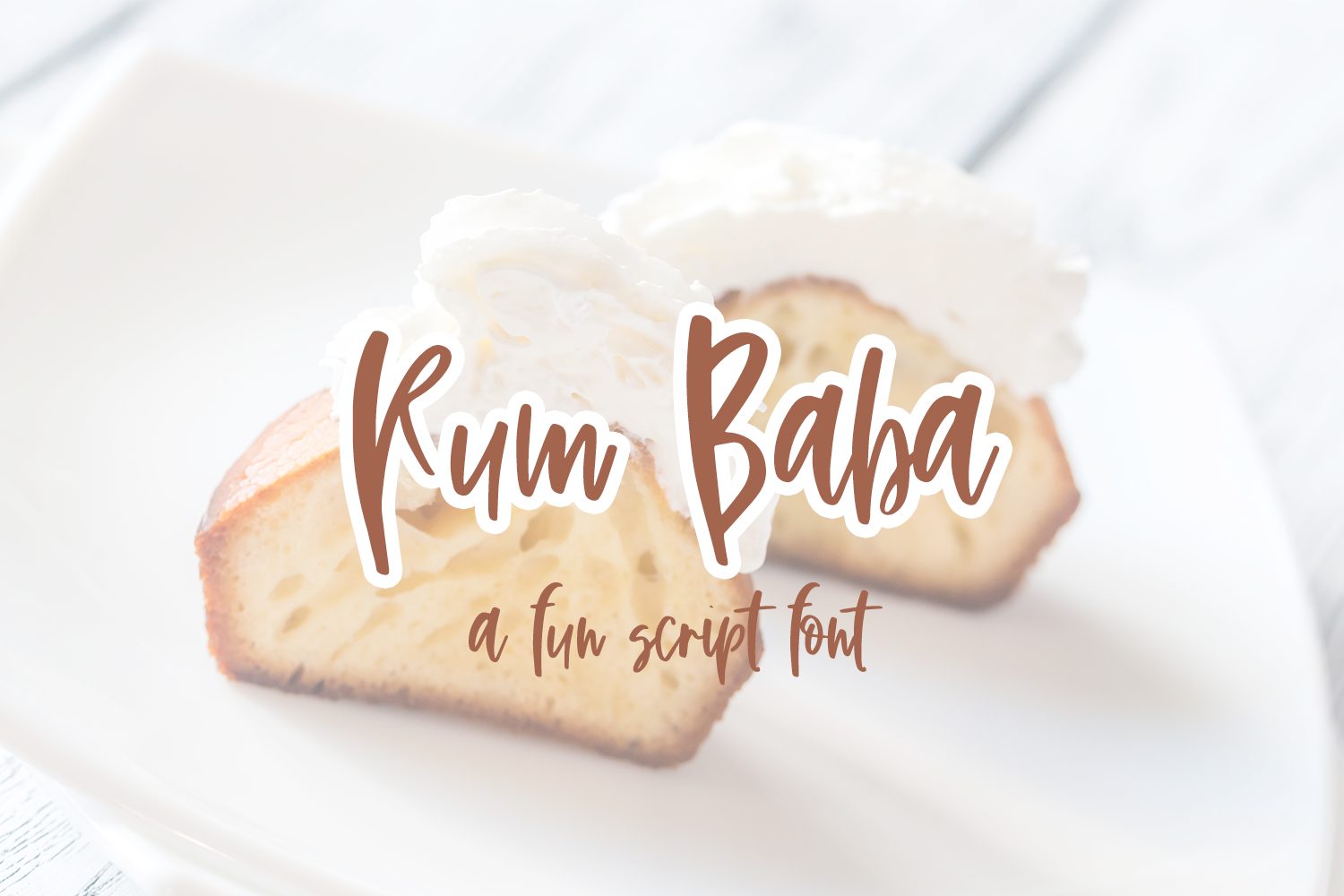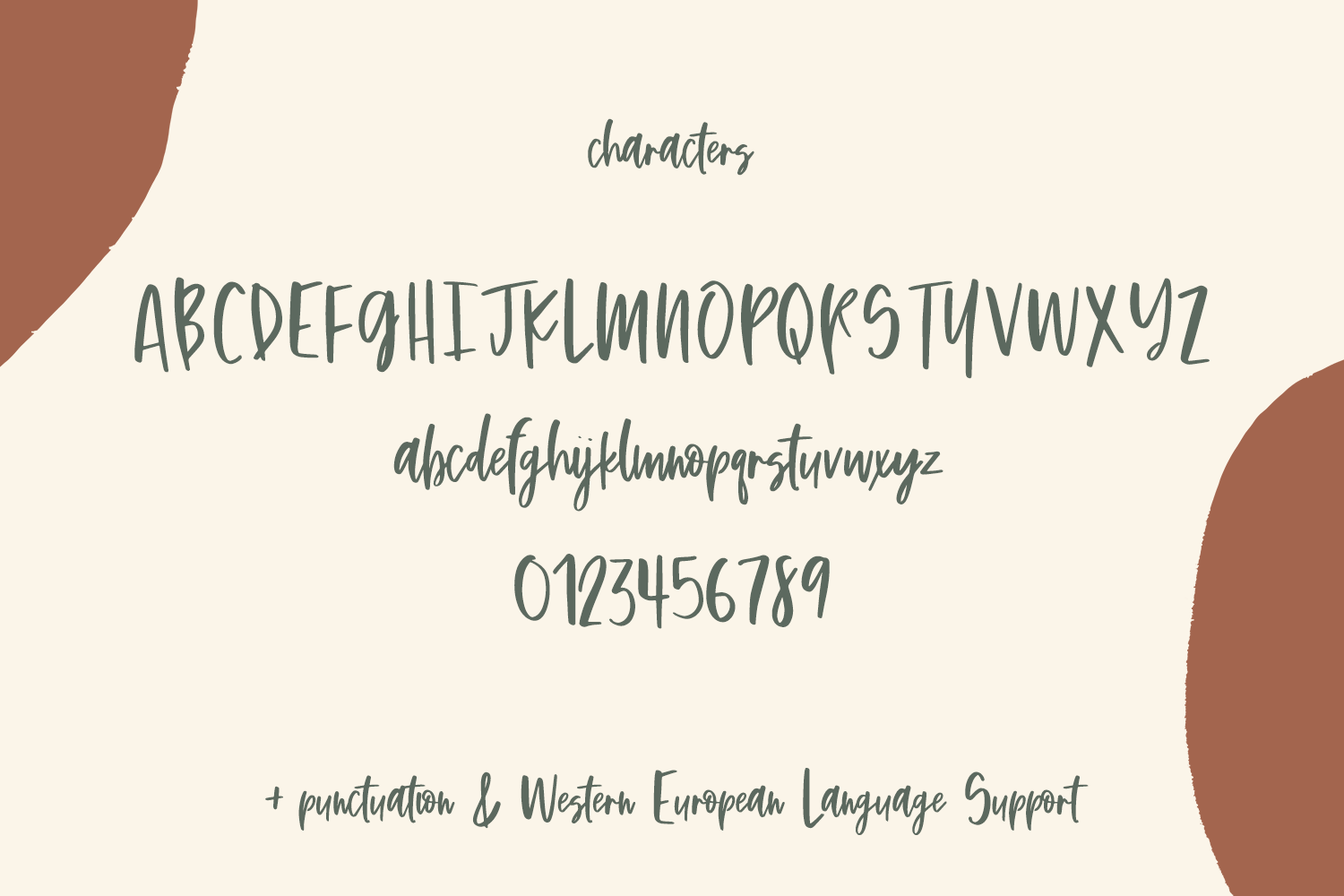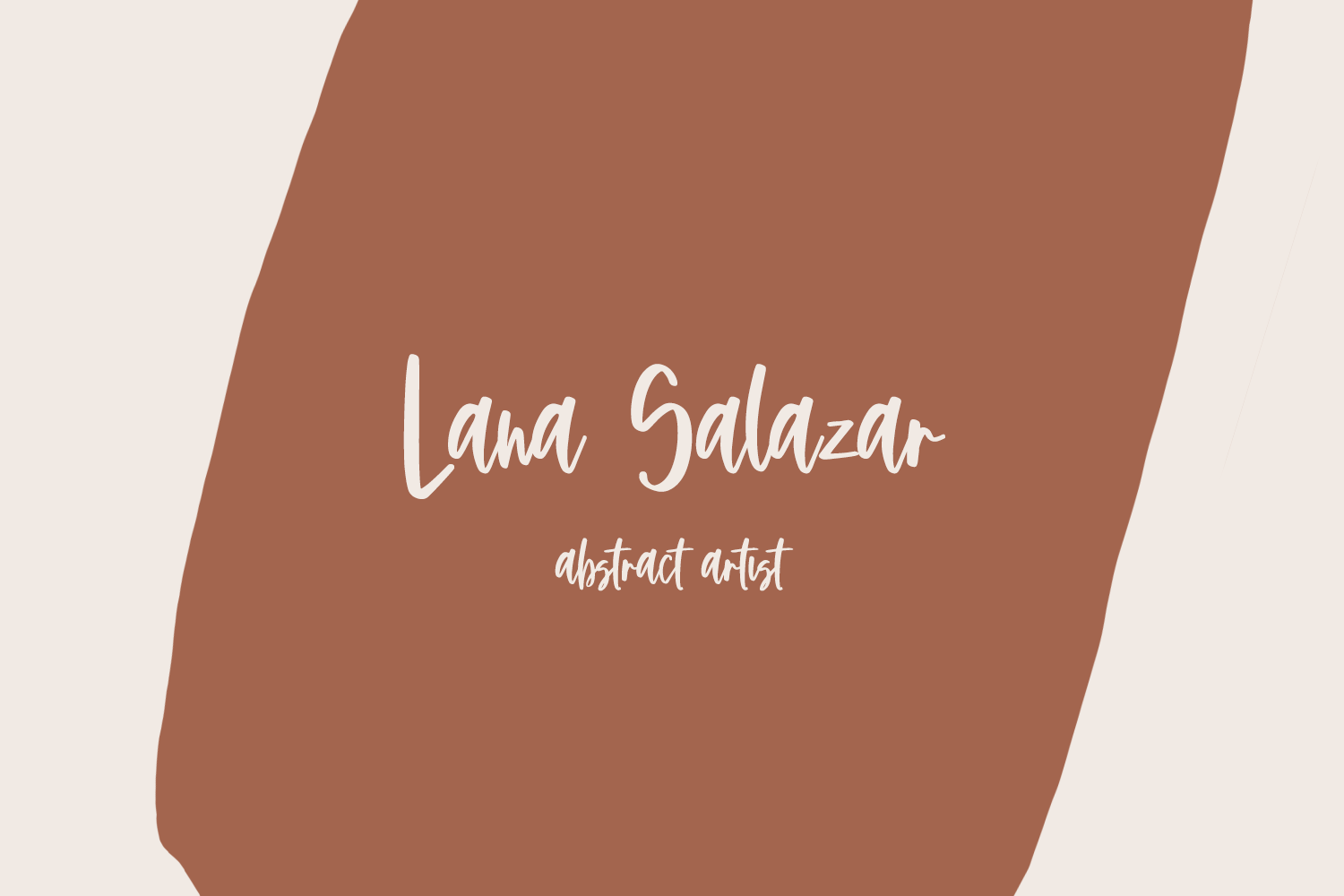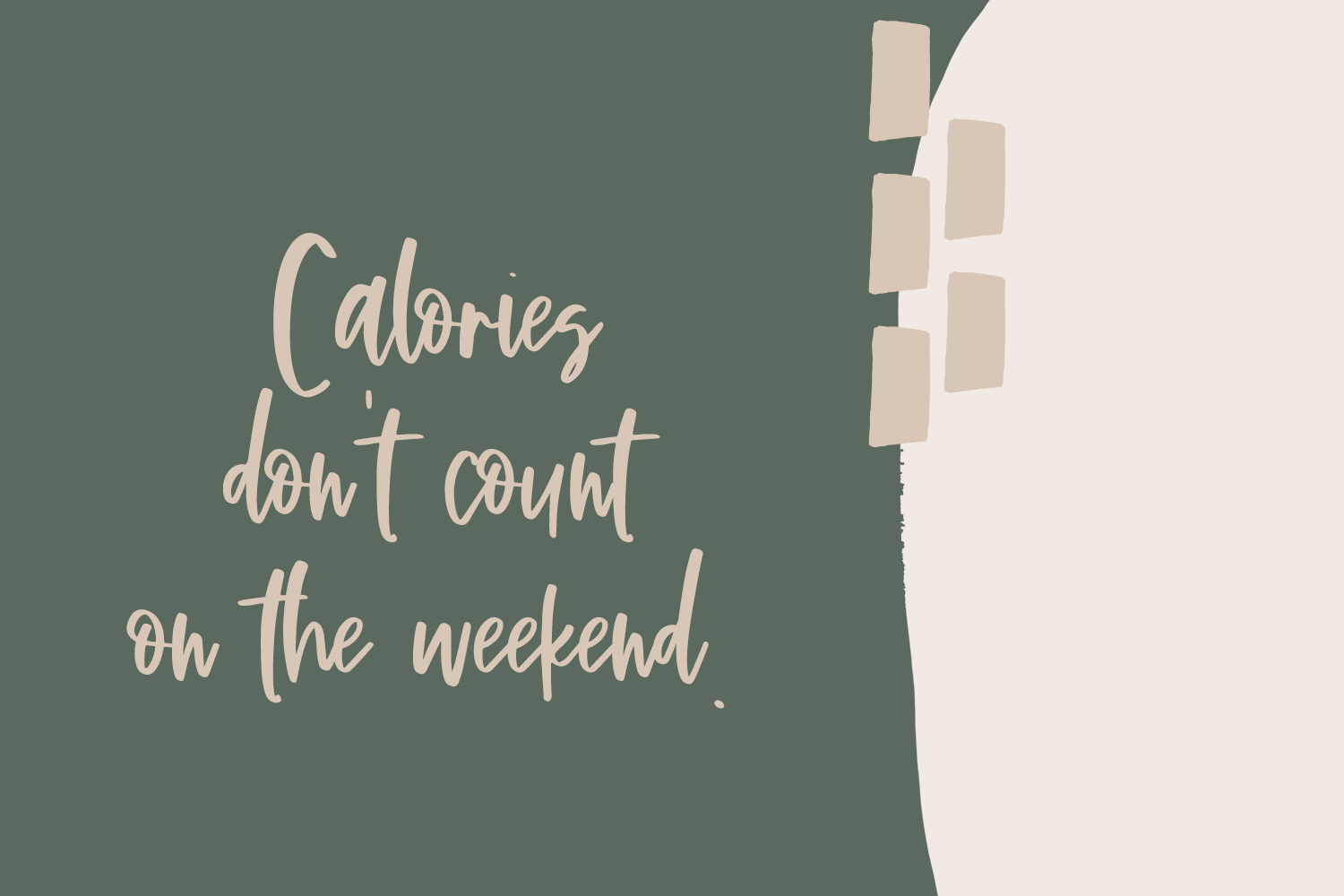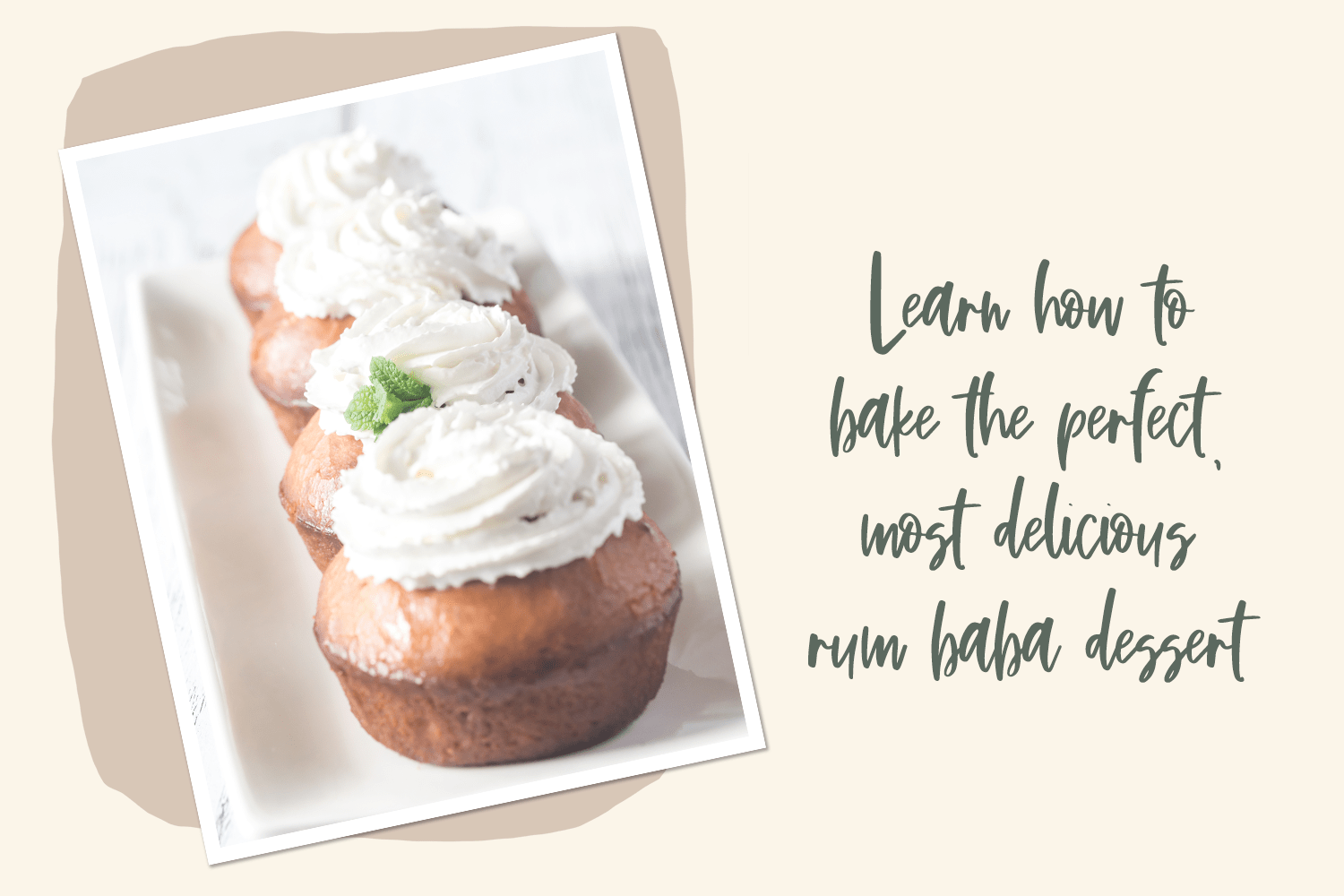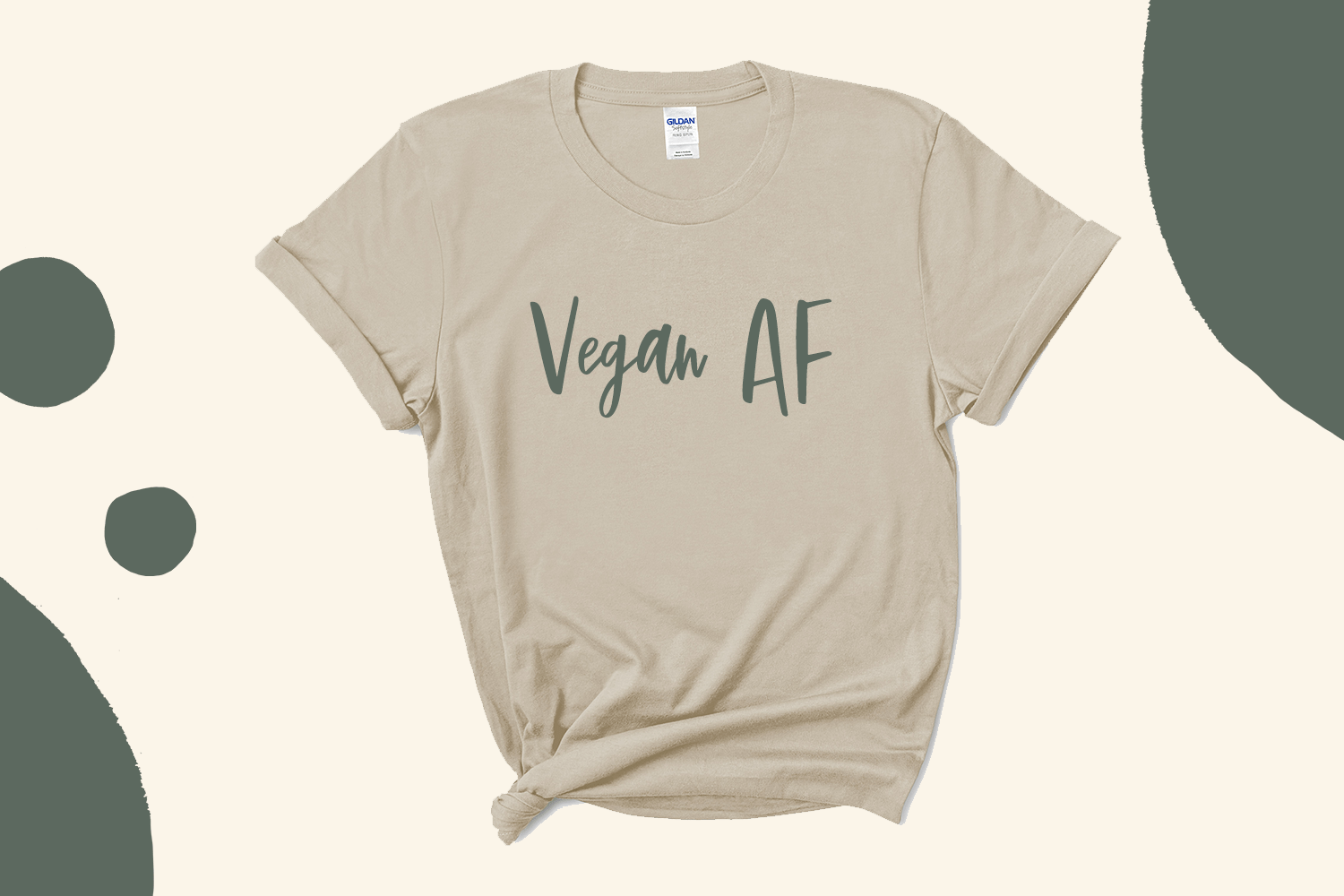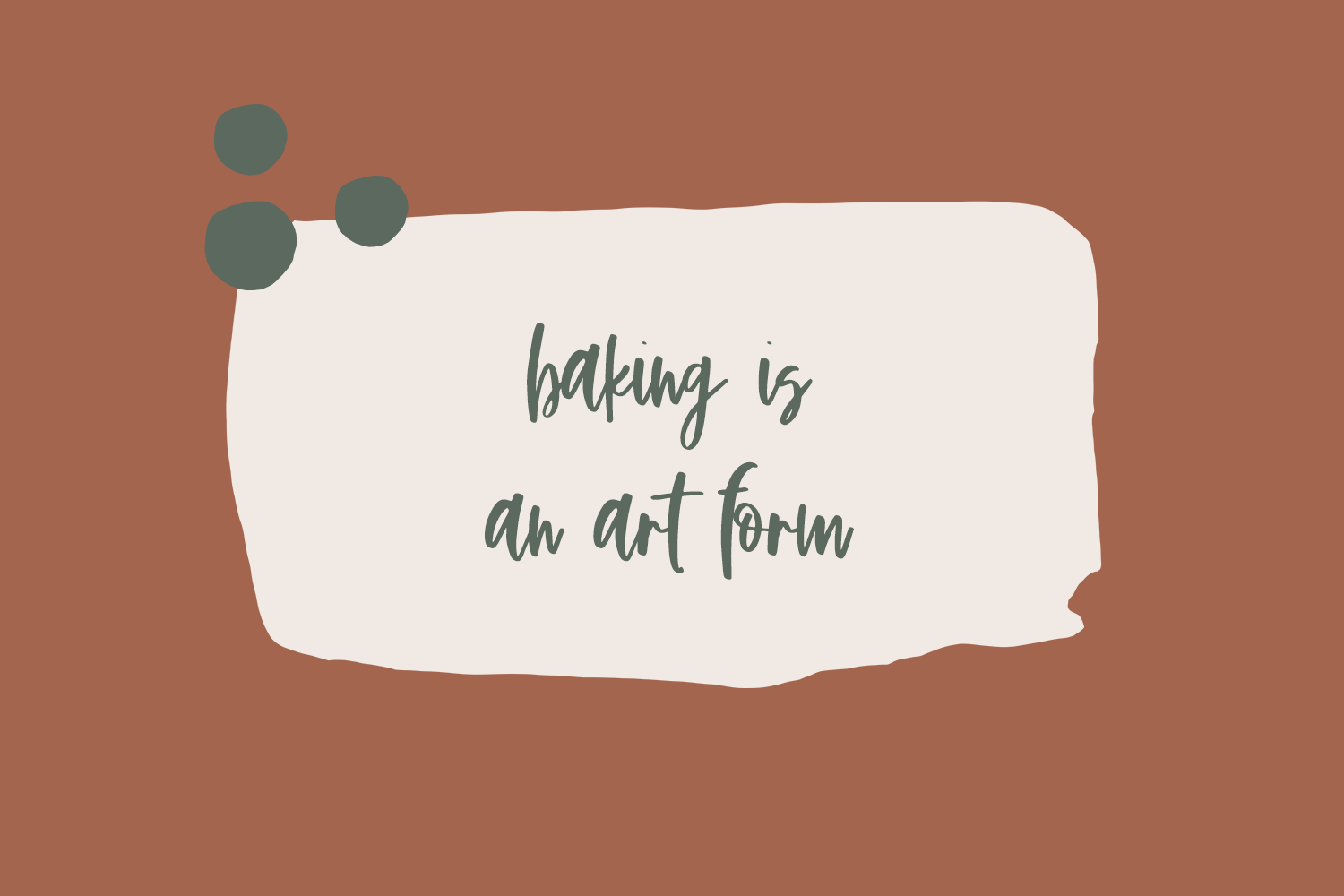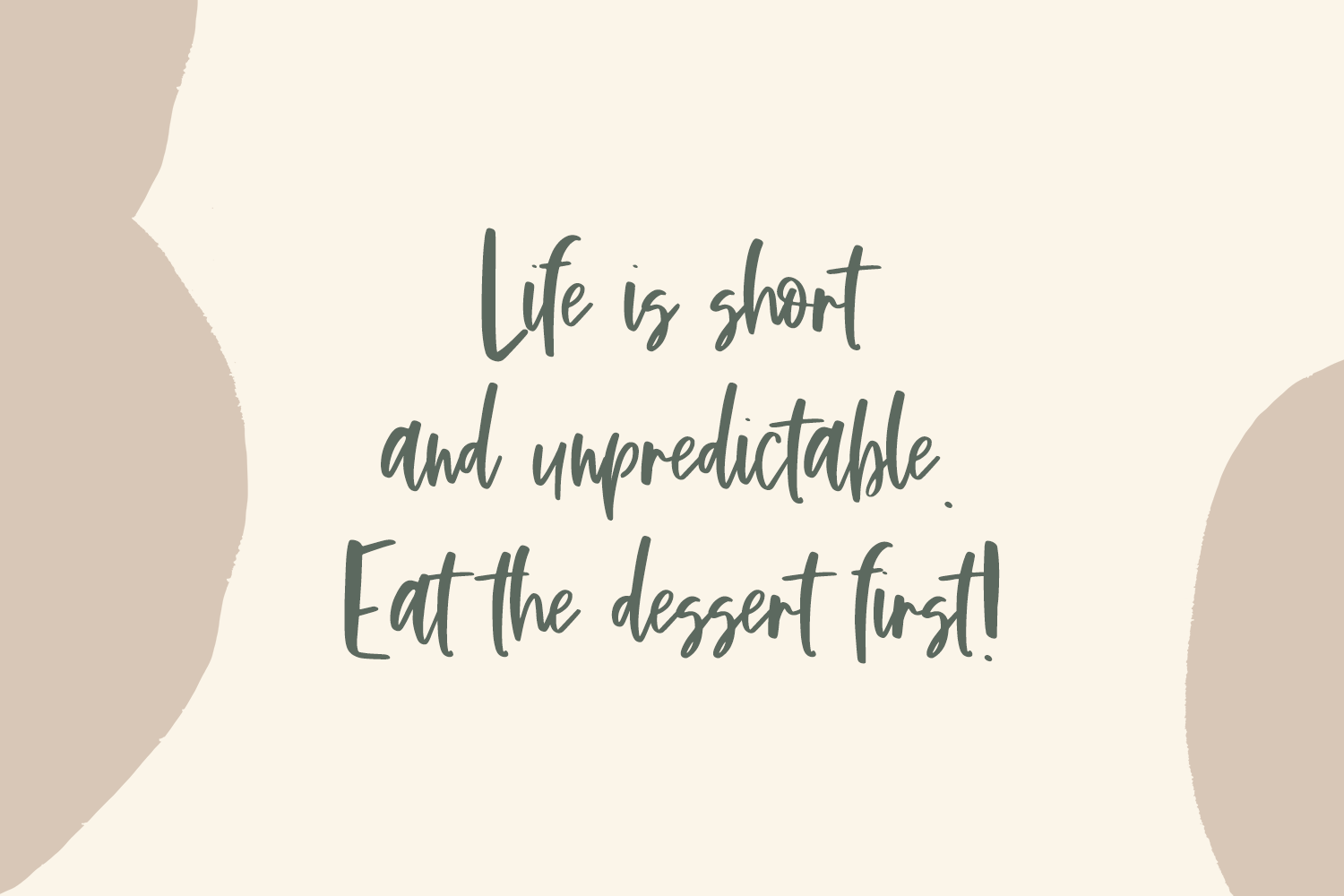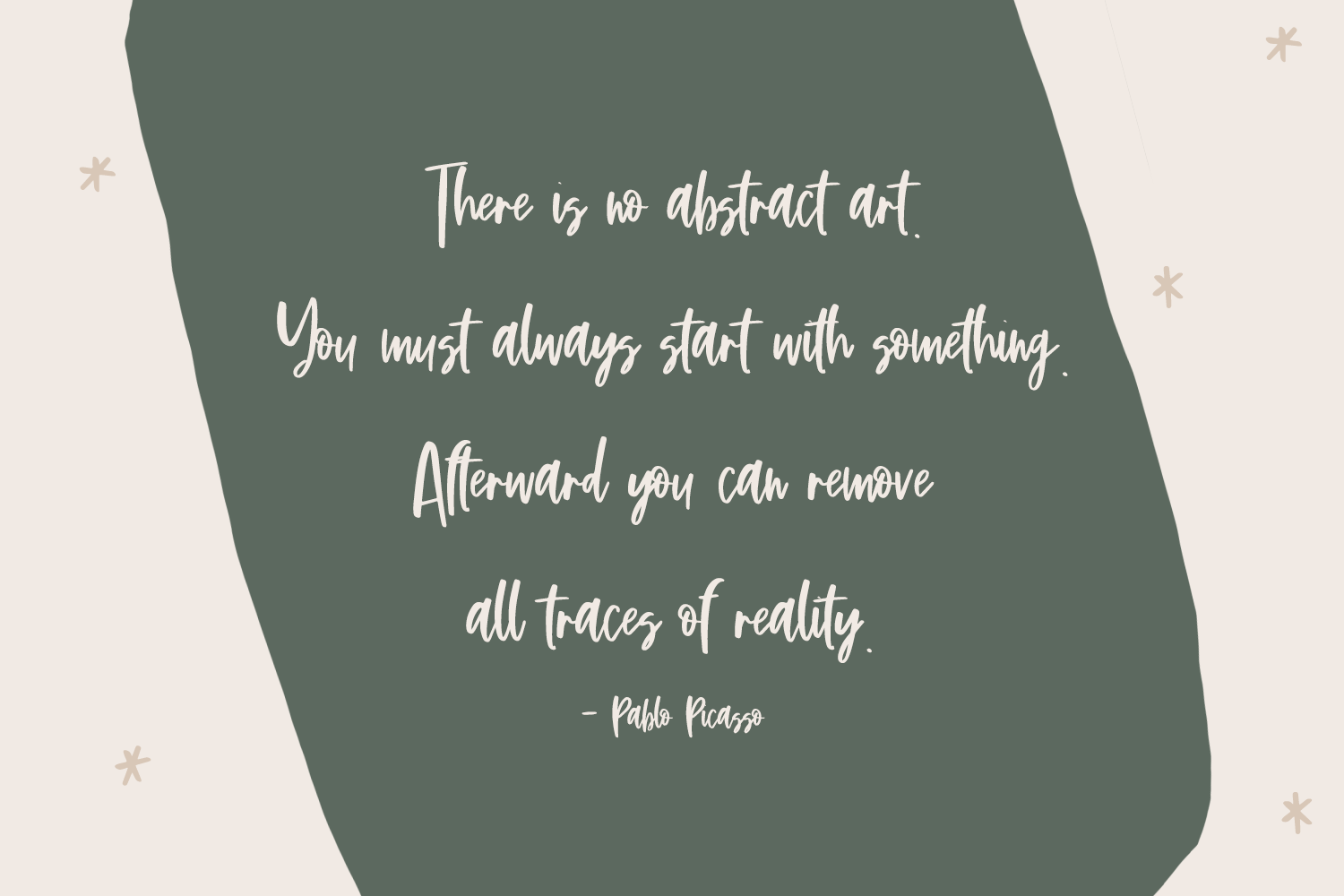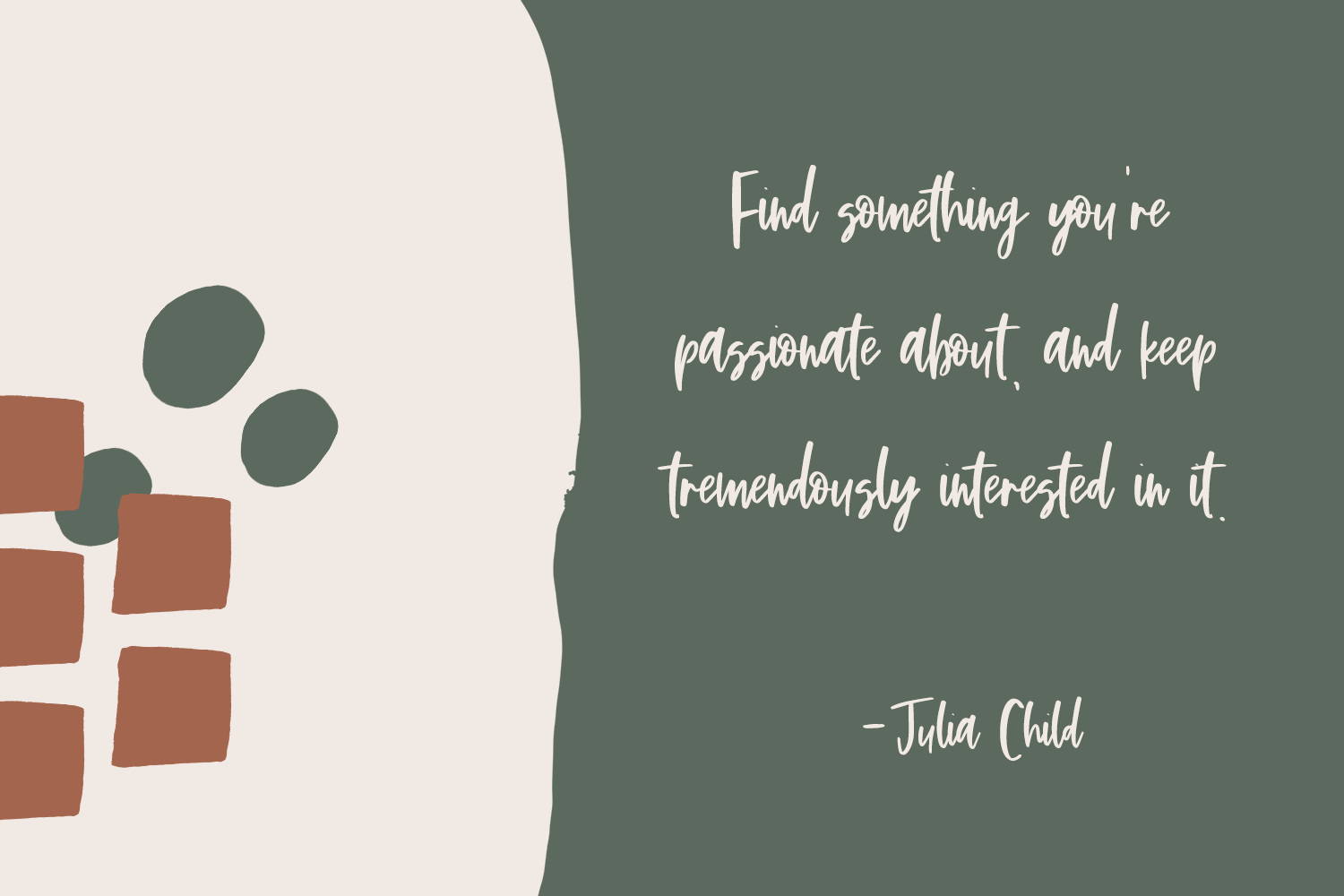
Rum Baba Signature Script Font
Meet Rum Baba, a messy handwritten script.
Rum Baba is best for:
– logos + branding
– website design + website accents – think travel blogs, fashion blogs, & more
– clean print design, like magazines + flyers
– header elements that need handwritten touch
– quote graphics for social media